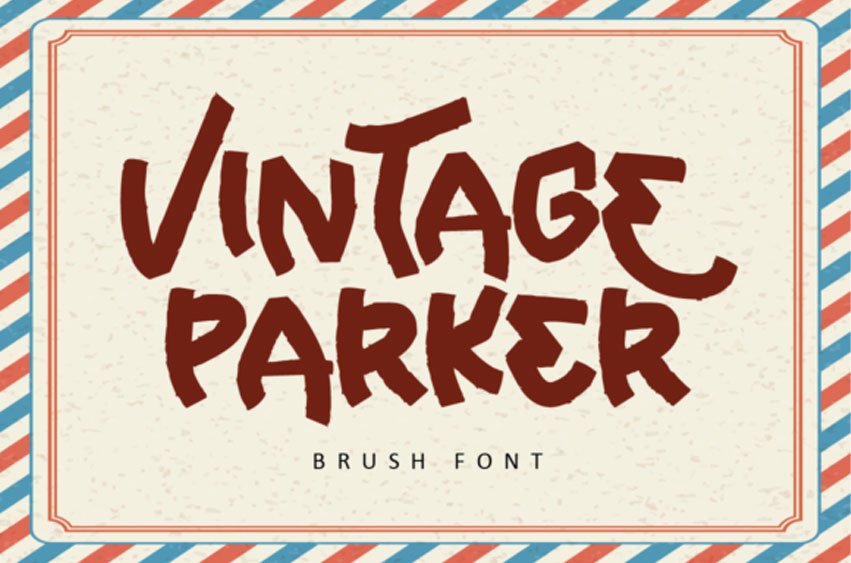
Vintage Parker Font is a playful display font with a quirky touch.
This versatility will appeal to a wide range of crafty ideas, from letterheads and titles to stationery.